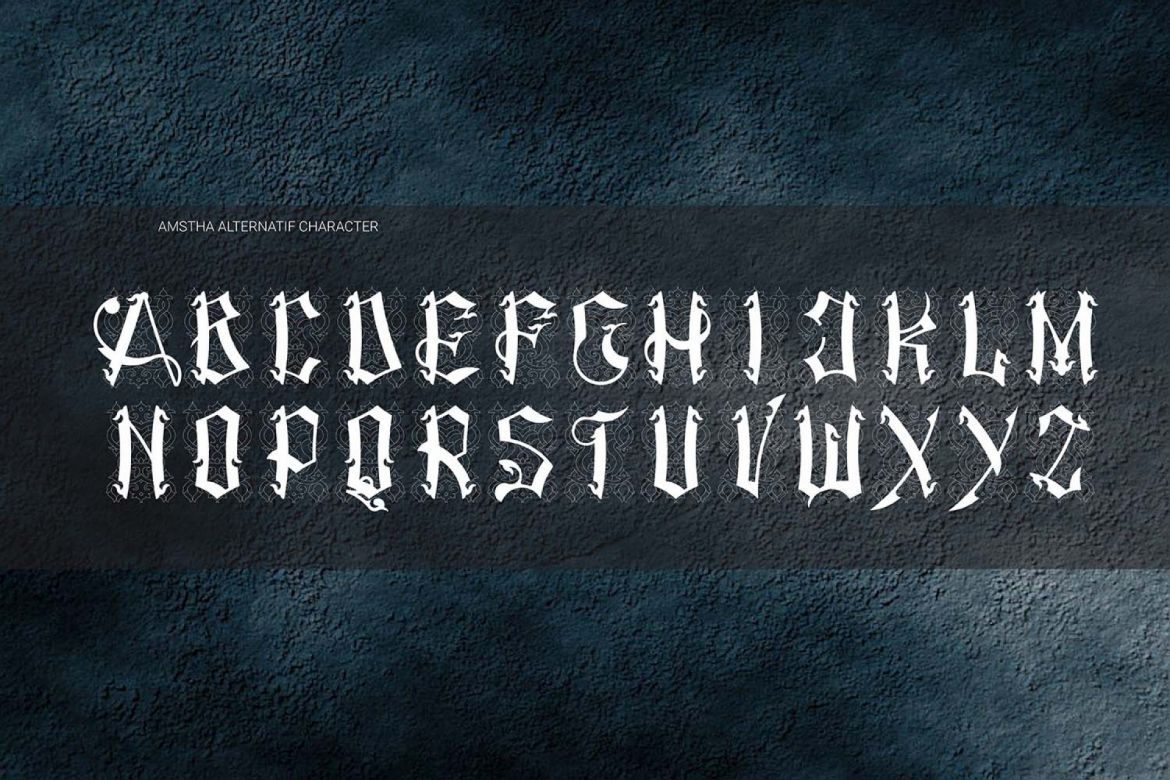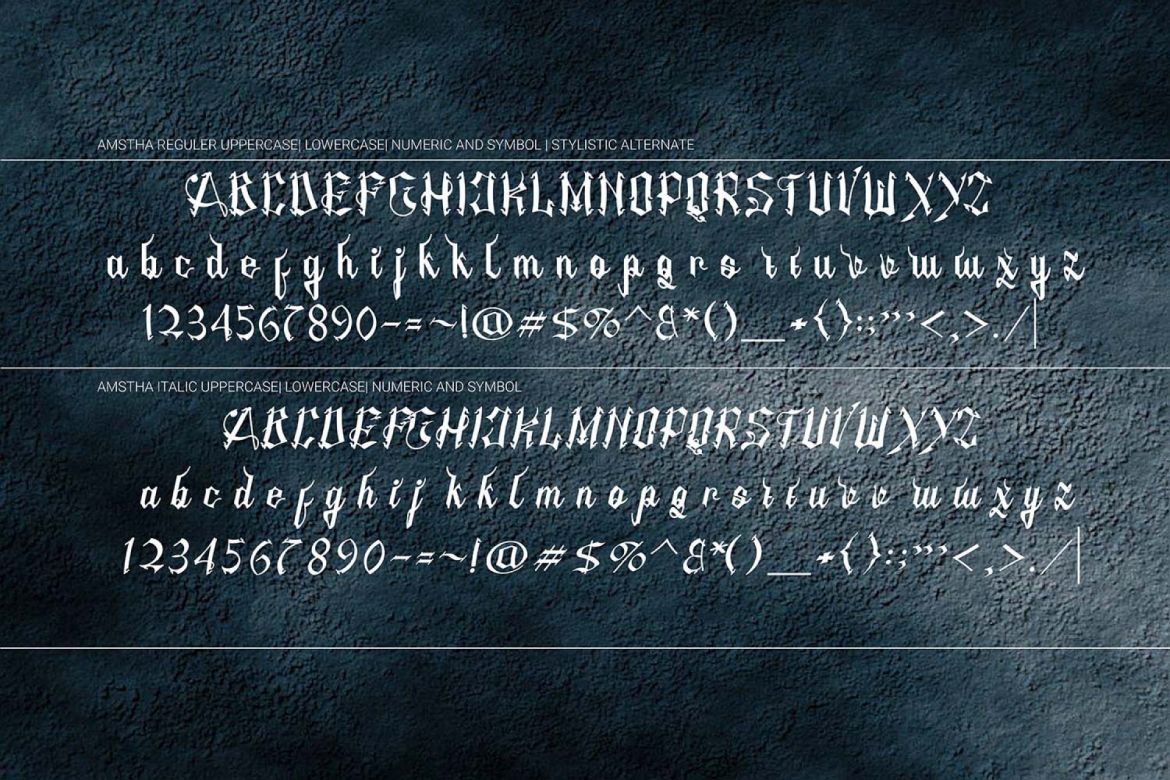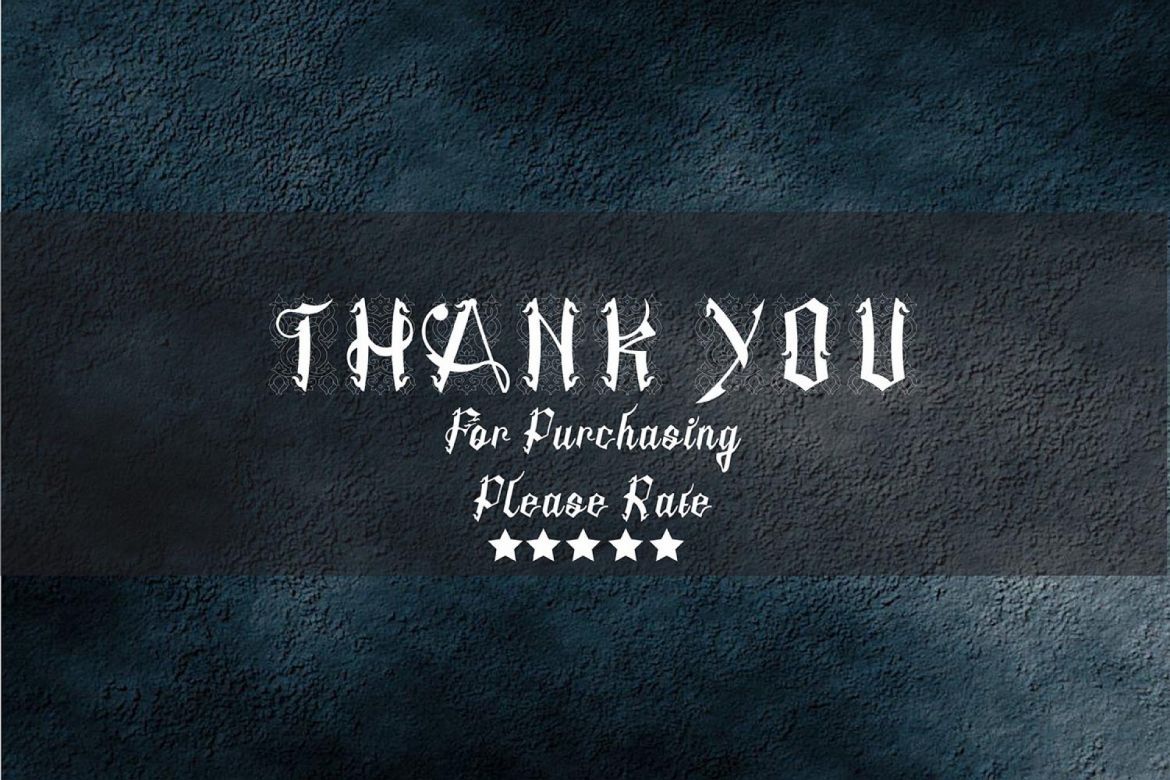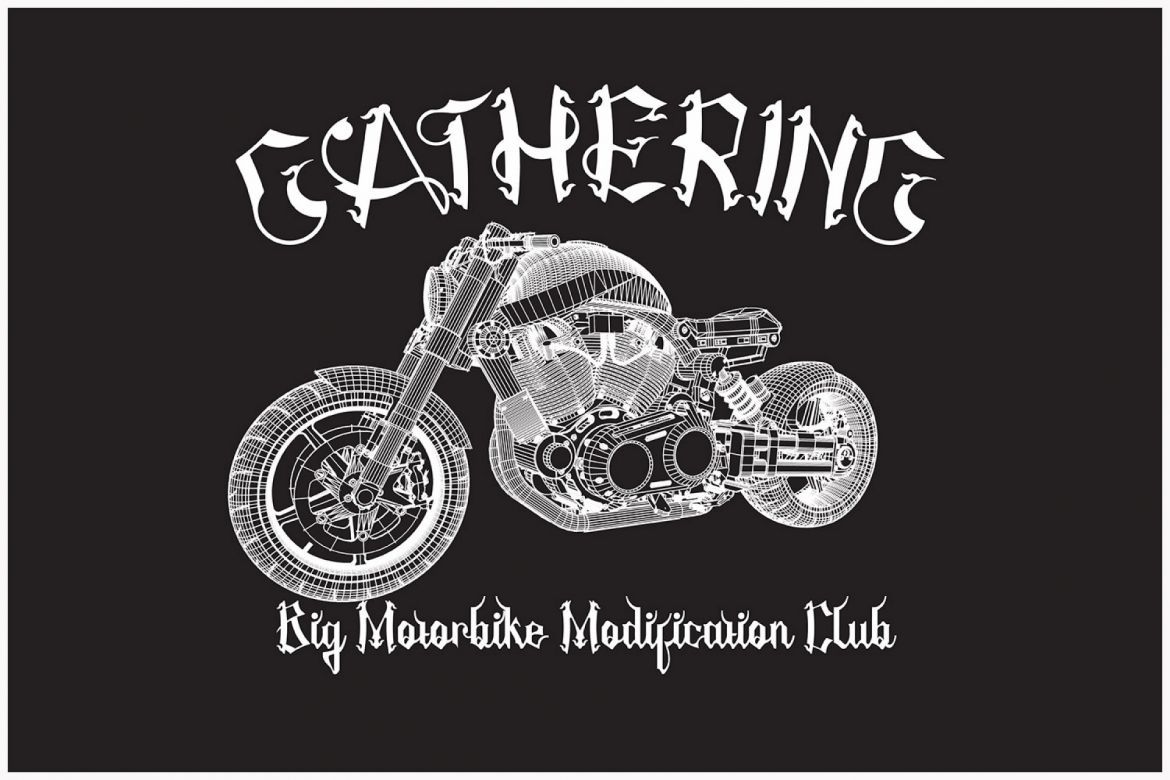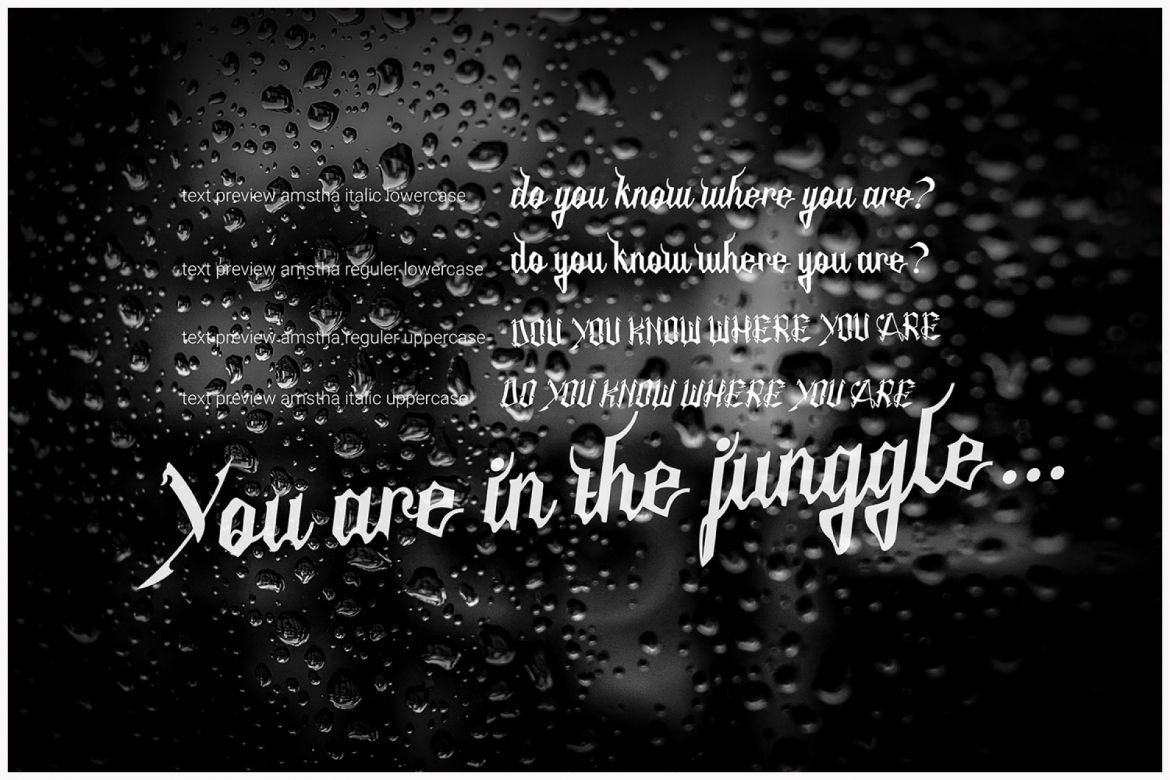
Amstha Gothic Font
Amstha is a gothic blackletter font that is a great option for a wide range of highly stylish yet moody and darkly themed projects. This torn/ripped styled blackletter font is a great way to root your designs thematically.